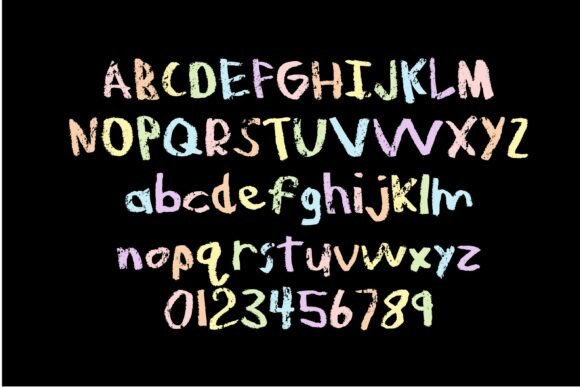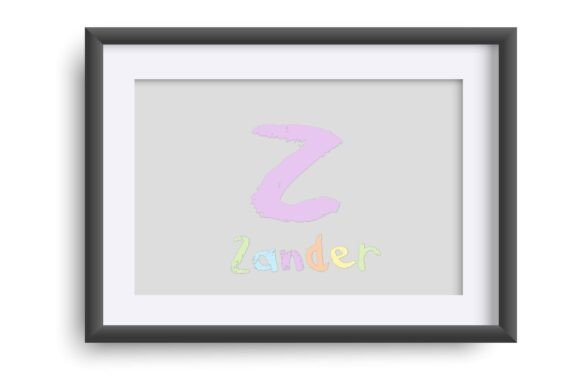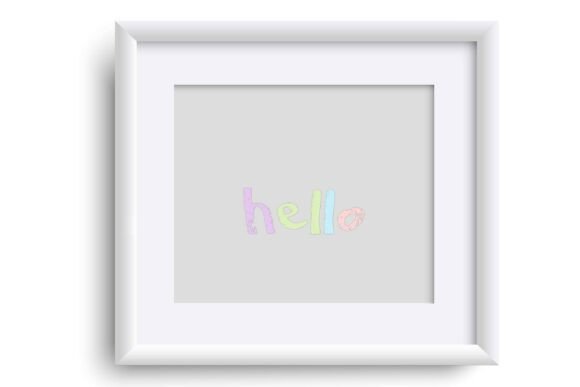
Introduction to Rainbow Chalk Font
Recreate the nostalgic magic of sidewalk masterpieces with Rainbow Chalk, a masterfully textured full-color SVG font that feels authentically hand-drawn.
This typeface captures the granular, powdery feel of real chalk strokes, maintaining highly detailed, textured edges and translucent overlays where colors meet Each character transitions through a delicate, sun-bleached rainbow palette of dusty pinks, soft lavenders, pale blues, and warm yellows.
Why Choose Rainbow Chalk Font?